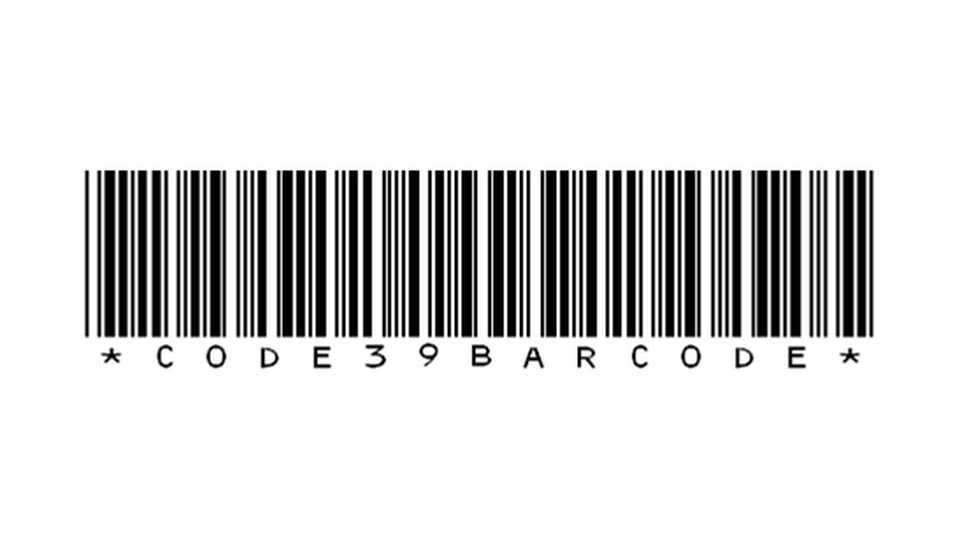
Download Code 39 Barcode font, the easiest font to use to encode ten characters or less. It’s a highly functional and precise font designed to generate machine-readable barcodes using the Code 39 standard.
Designer: IDAutomation